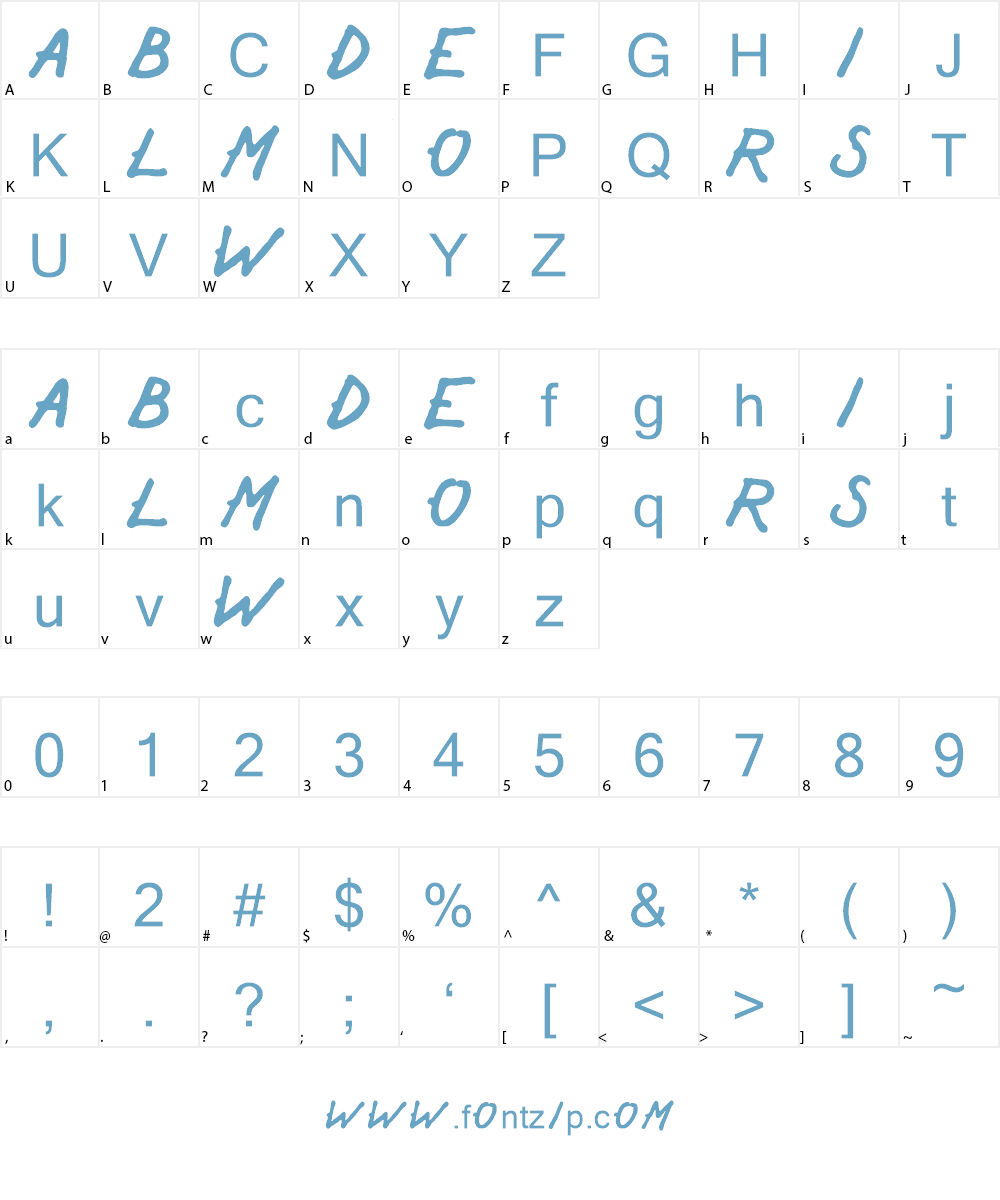
Sailor Beware is an oblique tattoo flash script. It was designed to provide a convincing option for merch designs and for tattoo flash prints. The characters have a general angle of 25 degrees, and a stud on the left side for a hint of ornamentation. Integrates seamlessly into your flash projects so you never worry about screwing up your painting again. The typeface is fully kerned to ensure perfect optical metrics.
Drawn with a Sharpie. Extended character support.